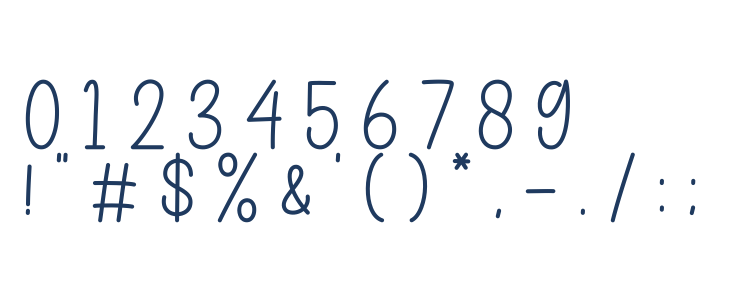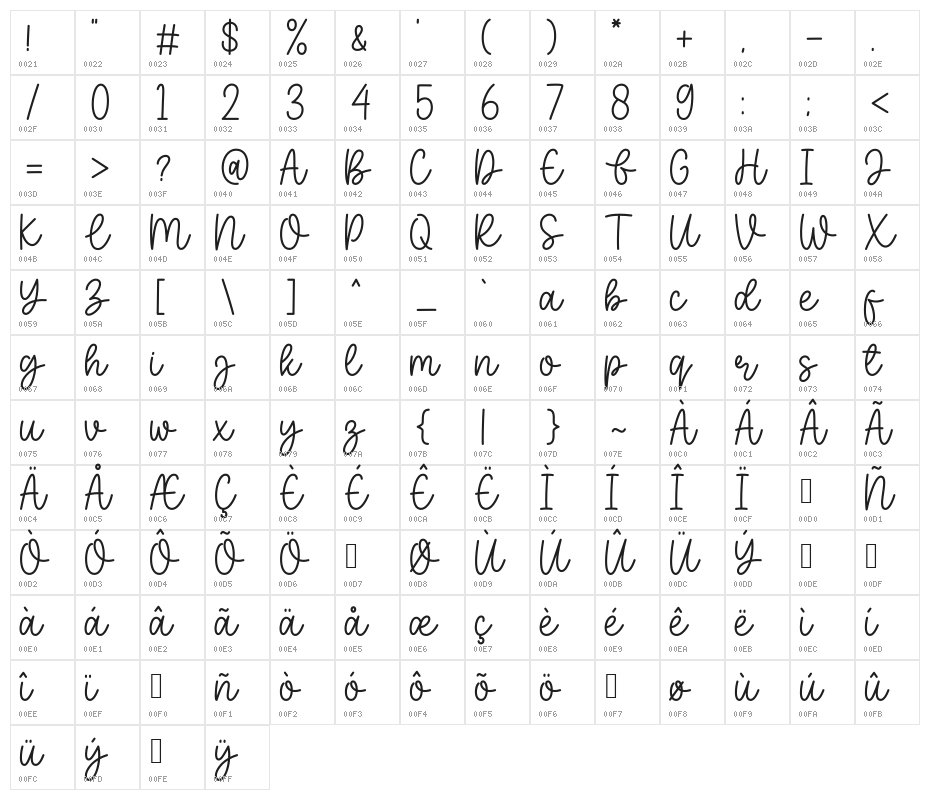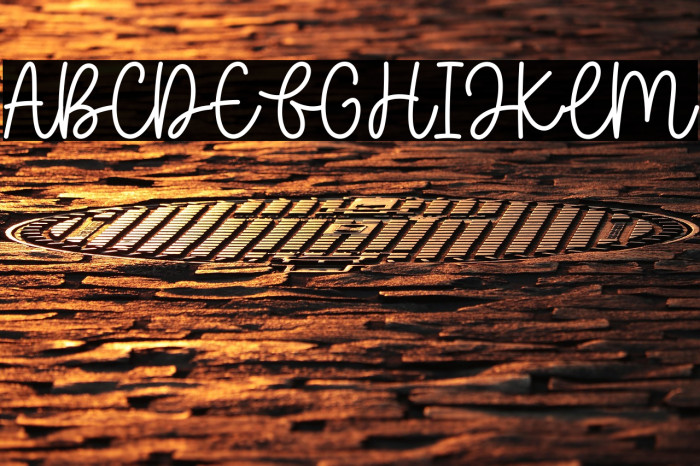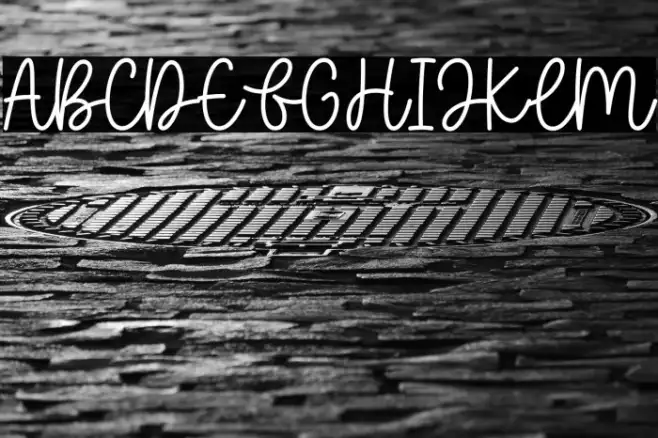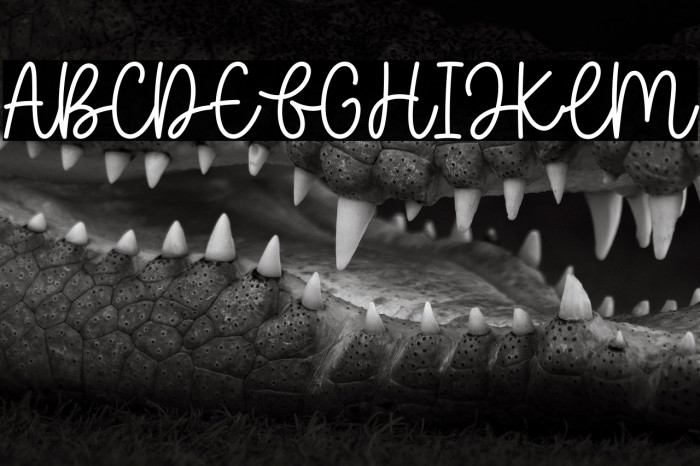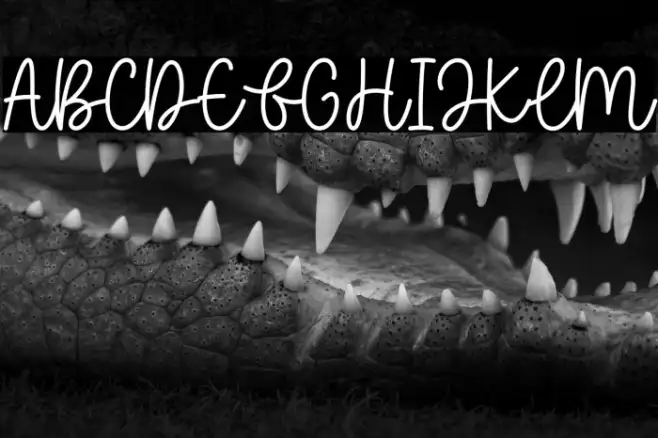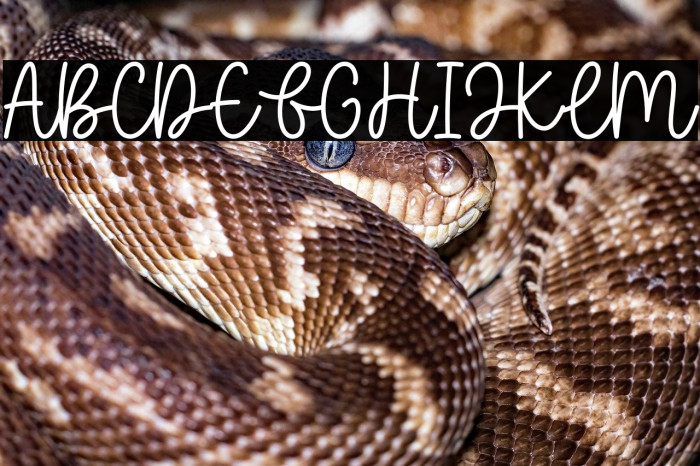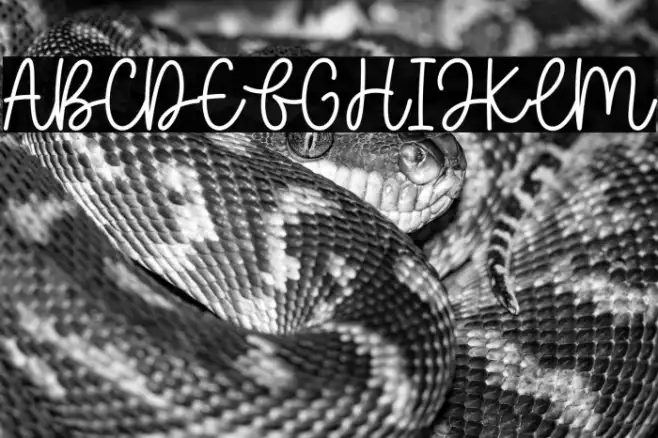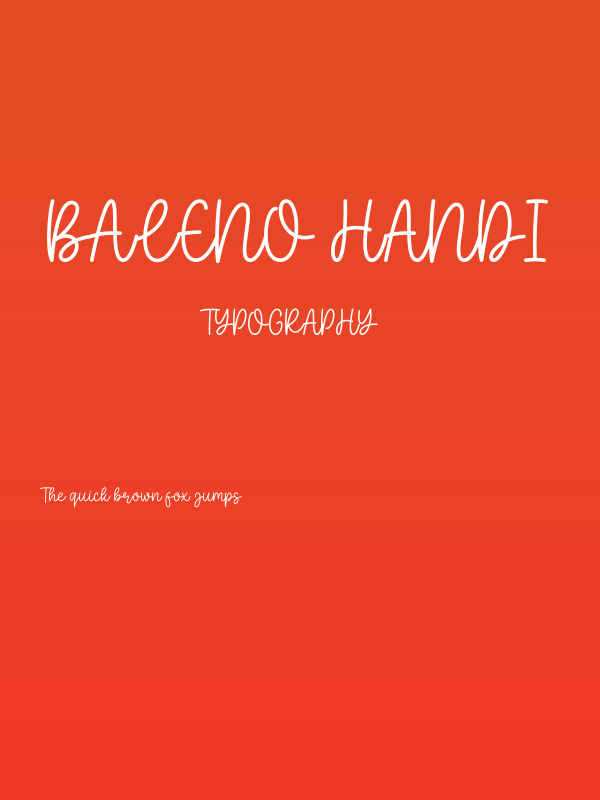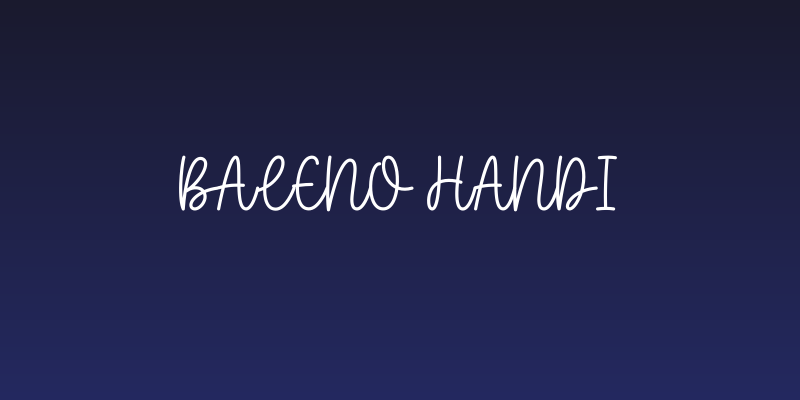
Baleno Handi Font
Baleno Handi Description
This font features a playful and flowing script style that mimics natural handwriting. The uppercase letters are elegantly looped and slightly slanted, giving a sense of movement and fluidity. The lowercase letters maintain a consistent flow with rounded forms and smooth connections, enhancing readability while retaining a casual aesthetic. The numerals are clear and straightforward, complementing the overall handwritten look. Special characters are thoughtfully integrated, maintaining the font's cohesive style. This font is perfect for projects that require a personal touch or a creative flair.